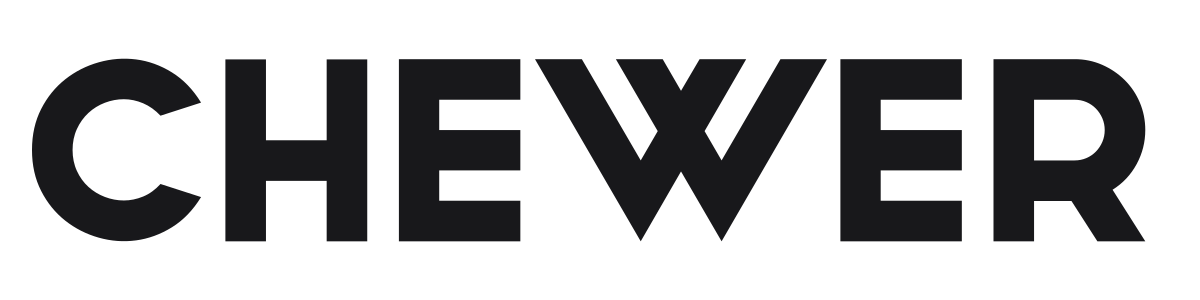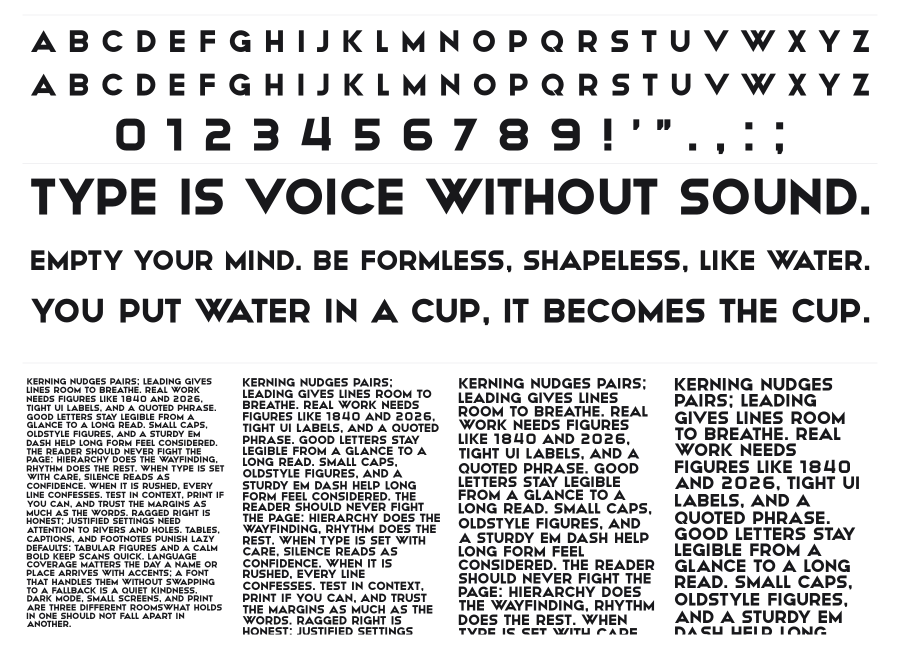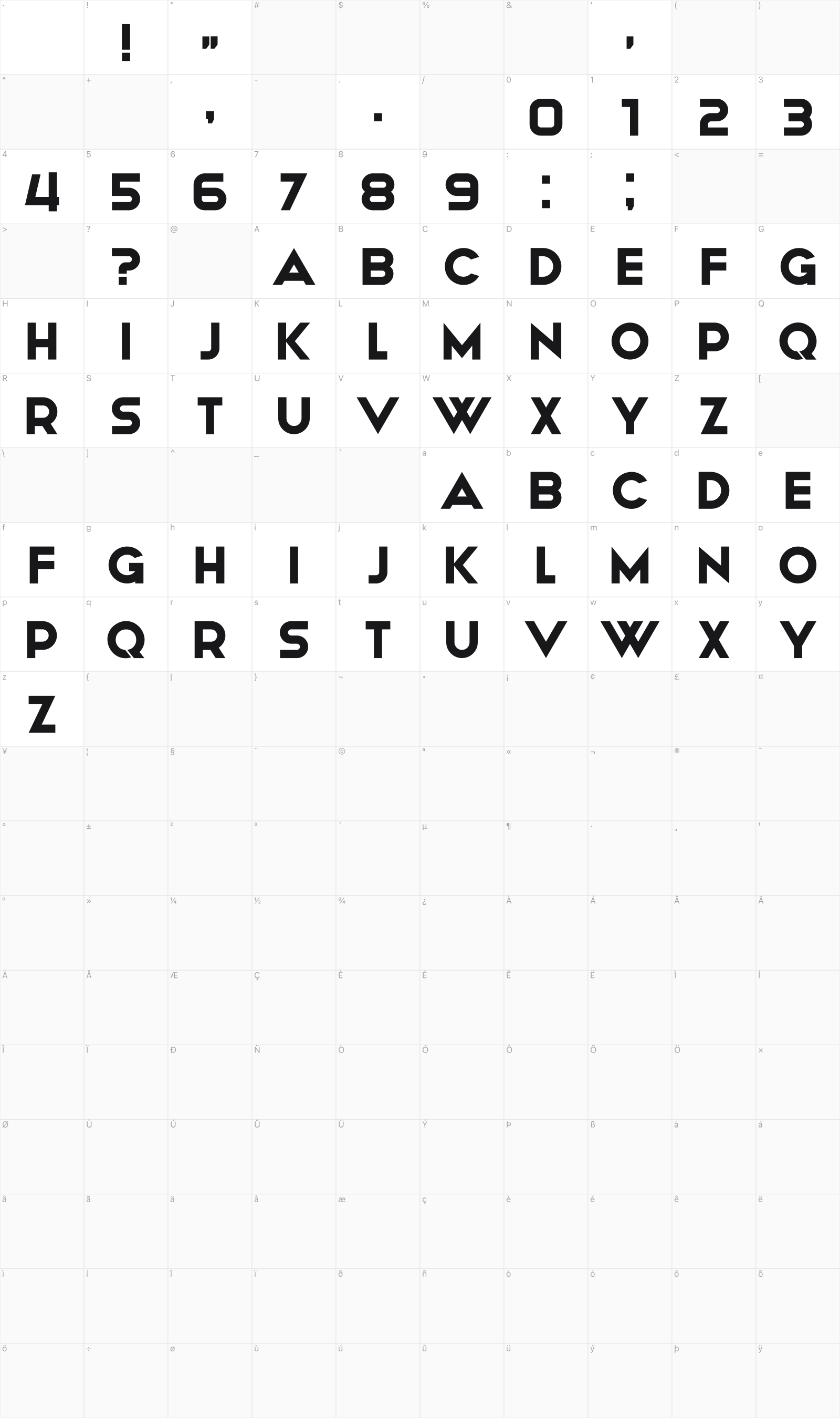
Chewer
Chewer is a bold grotesque sans with heavy weight, wide proportions, and clean monoweight strokes. It carries the confident punch of a classic headline grotesque while feeling distinctly contemporary. Strong in logos, posters, and any setting where weight needs to do the work.